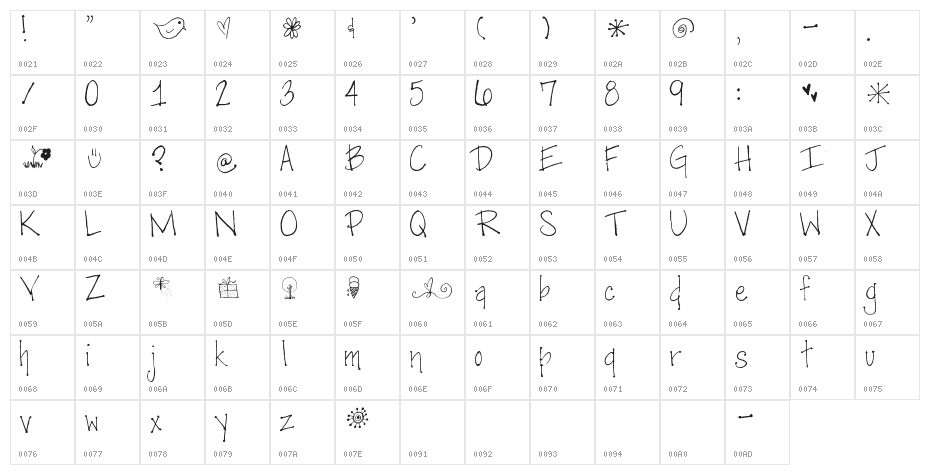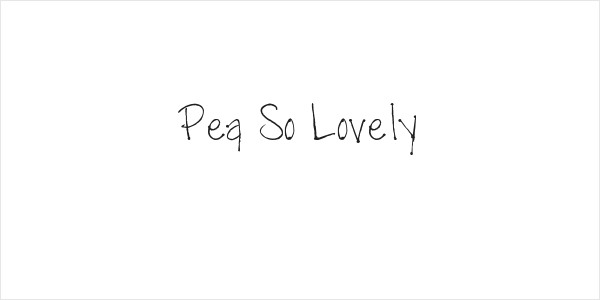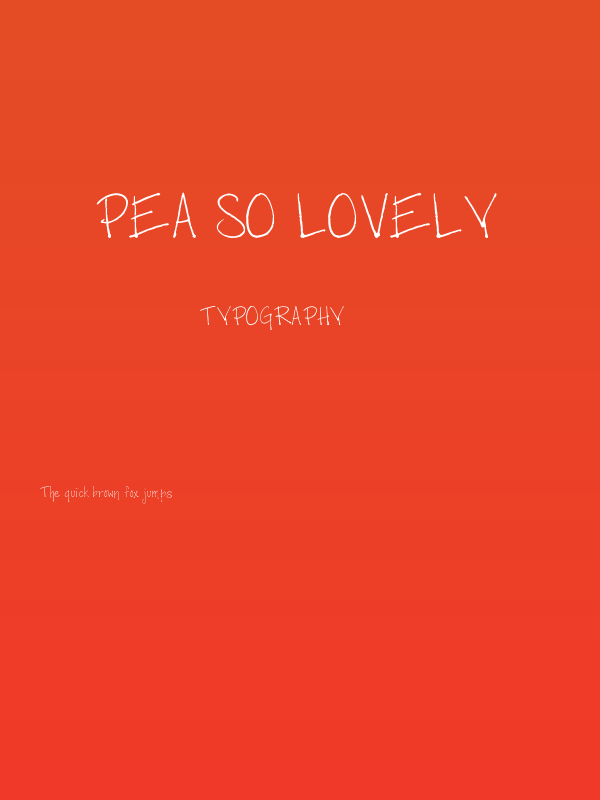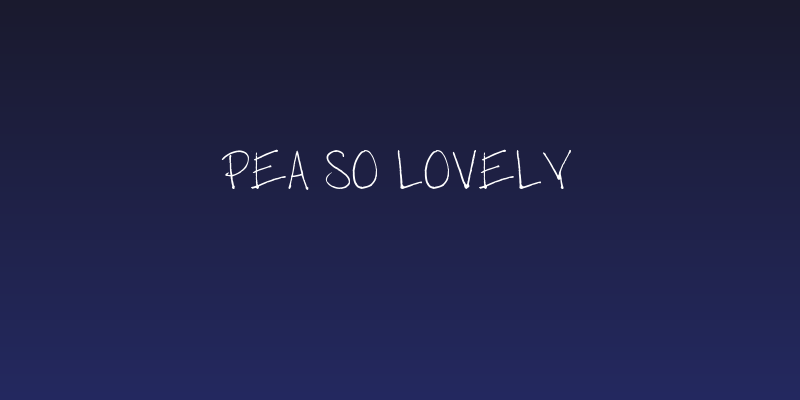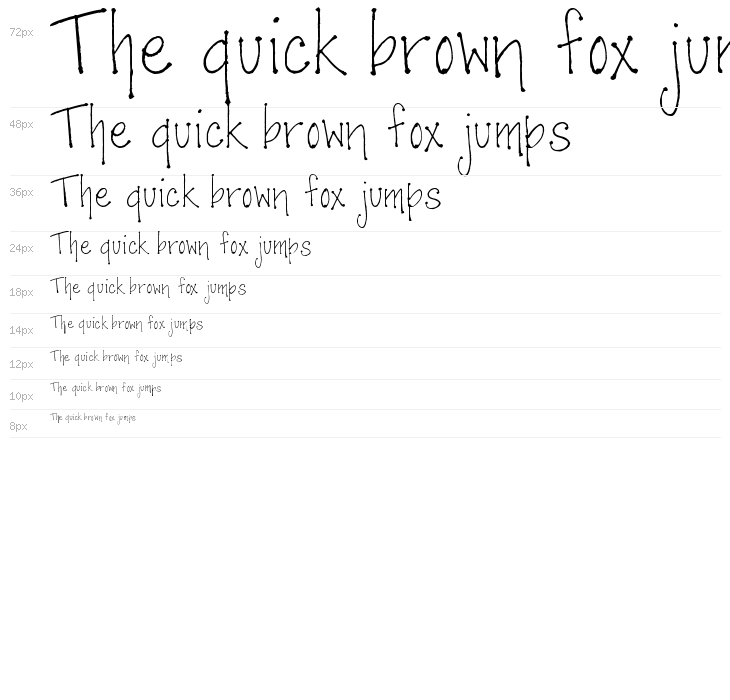
Pea So Lovely Font
Pea So Lovely Description
This font exudes a playful and whimsical charm, characterized by its handwritten style that mimics the fluidity and imperfections of natural handwriting. The letters are slightly irregular, with varying stroke thickness that adds a personal touch. The uppercase and lowercase letters maintain a consistent style, with a slight slant that enhances its casual appearance. The numbers are equally playful, fitting seamlessly with the overall aesthetic. Special characters, including a bird, heart, and flower, add to its decorative appeal, making it ideal for creative projects. The font's unique personality makes it stand out, perfect for designs that require a personal, friendly touch.